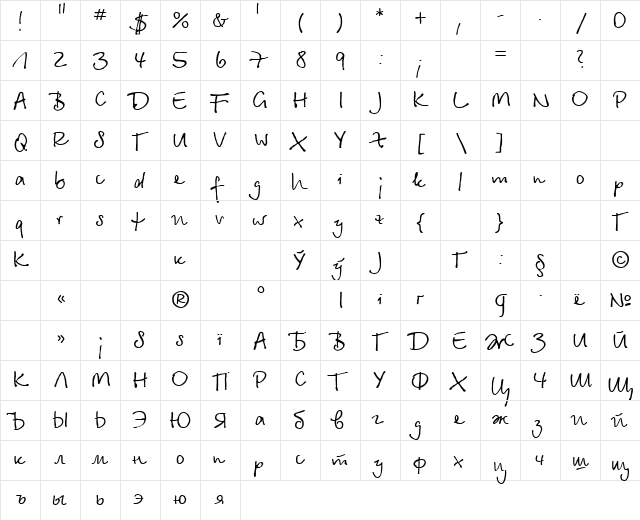
Betina Normal Font Preview
Betina Normal
Design Context for Betina Typeface
Betina takes a measured approach to typography — its balanced proportions and neutral character make it a reliable workhorse for both digital and print work.